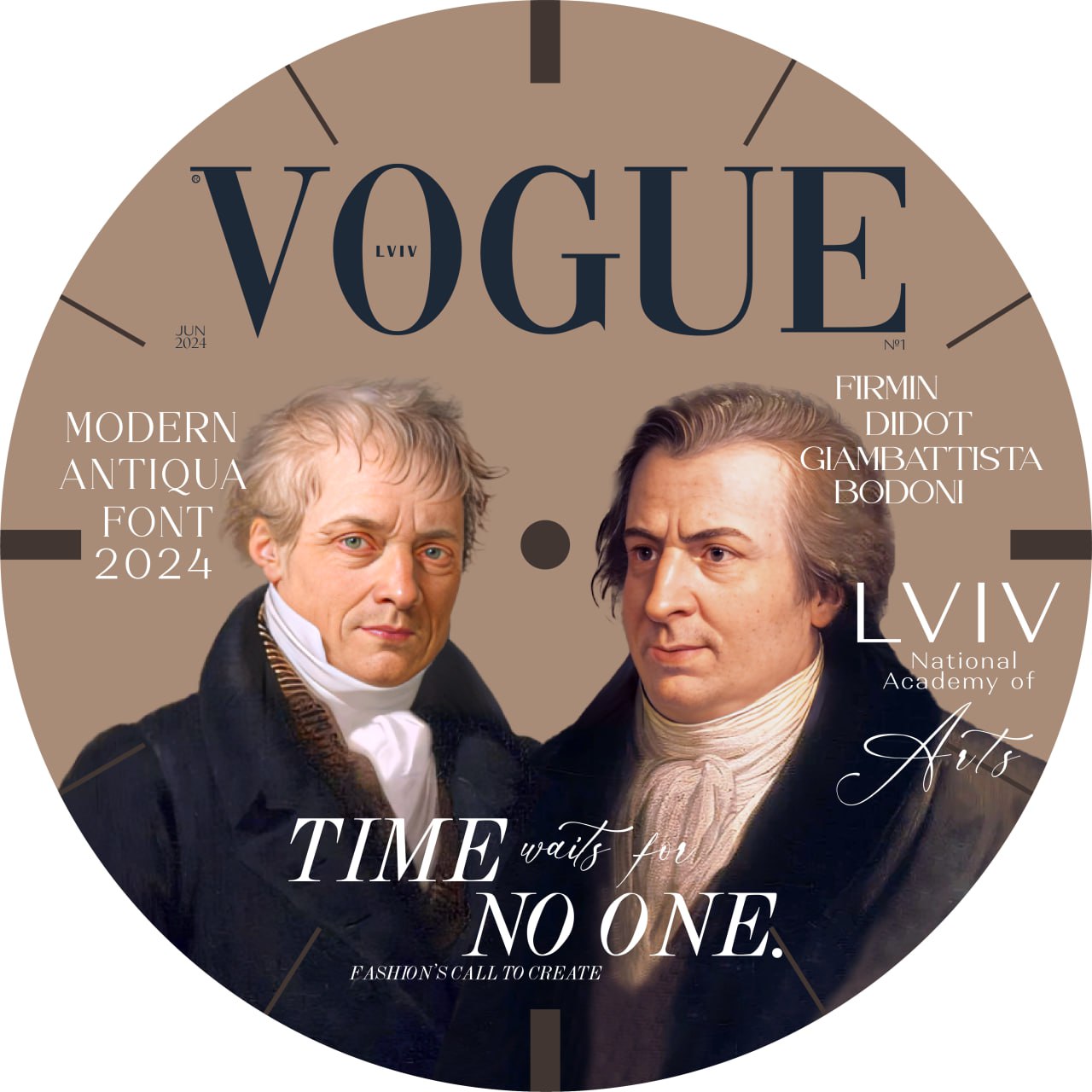
Time of Fonts
Illustrations & DrawingsFont research work on the theme "New Antiqua". The history of this font is directly related to two popular type designers of that time - Firmin Didot and Giambattista Bodoni. Currently, modern antica fonts are the basis for the popular magazine Vogue. That is why I decided to create an original watch design in the style of Vogue